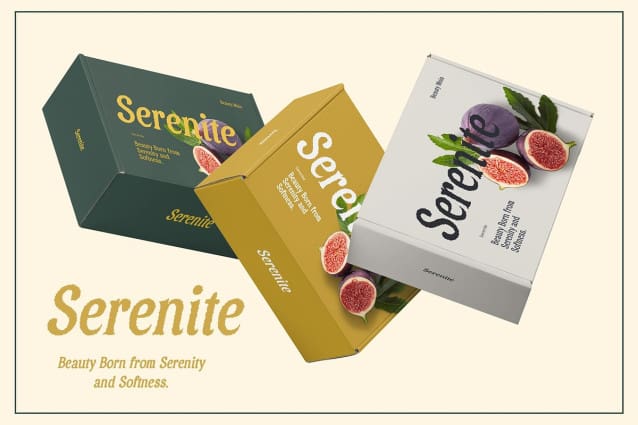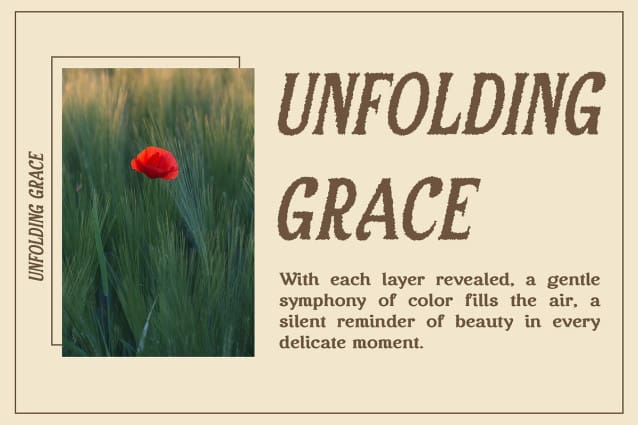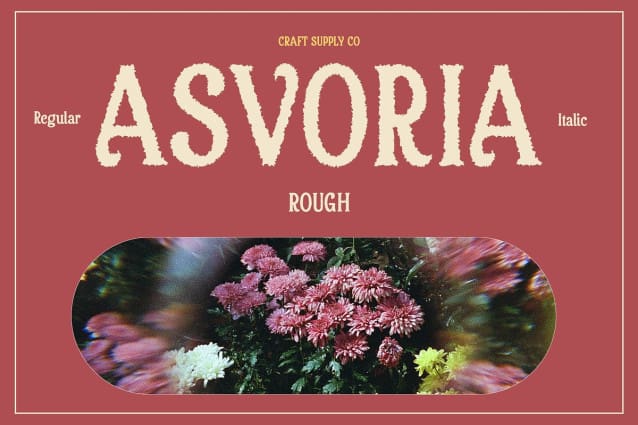
Asvoria Rough Font
Asvoria Rough Font is a distinctive serif font that seamlessly blends classic elegance with a vintage, weathered aesthetic. Inspired by traditional serif designs, it boasts smooth, curved letterforms and precise serif details, all enhanced by a subtle rough texture that brings a sense of age and authenticity. This unique combination results in a font that feels both timeless and well-worn, perfect for capturing attention in retro-inspired or heritage-themed projects.
Textured Details for a Refined, Rustic Touch The rough effect in Asvoria Rough gives each letter a handcrafted, organic quality, adding personality without compromising readability. This textured finish offers a sophisticated yet rustic feel, making the font ideal for designs that aim to evoke nostalgia or a historical flair. It’s perfect for logos, titles, and headlines that need to stand out with a refined, weathered character, making any design feel like a work of art.
Versatile for Branding, Packaging, and Editorial Design Asvoria Rough’s versatility shines across a range of applications, from branding and packaging to editorial layouts. Its retro charm makes it an excellent choice for vintage-style packaging, luxury branding, or magazine layouts that emphasize style and timelessness. Whether used for classic product labels, elegant book covers, or high-end promotional materials, Asvoria Rough adds depth and intrigue to any design.